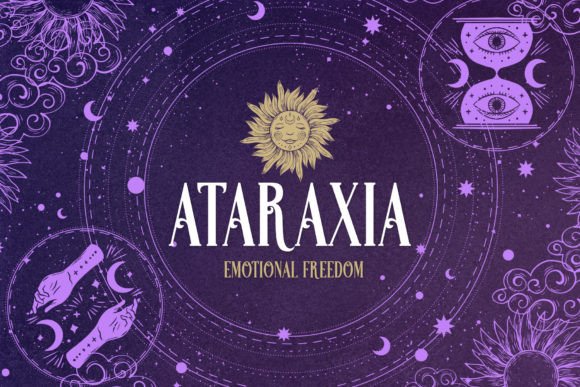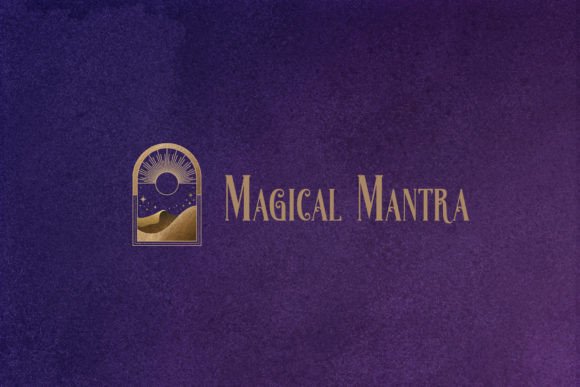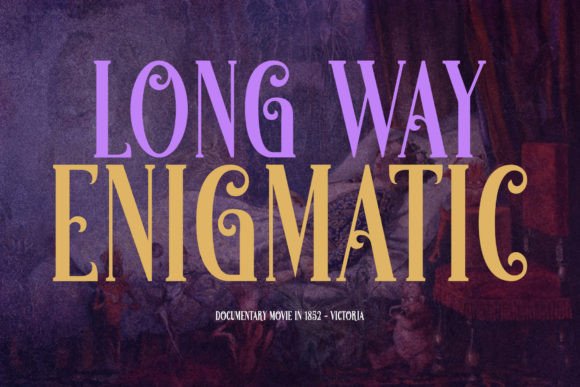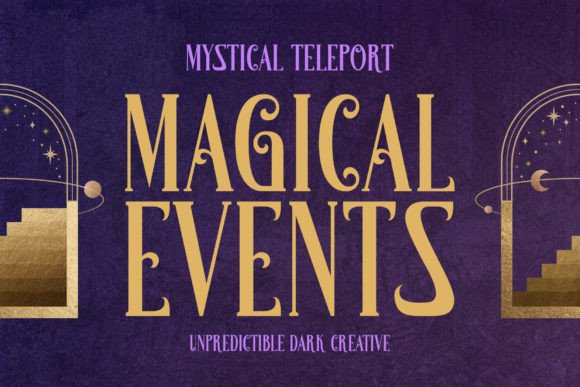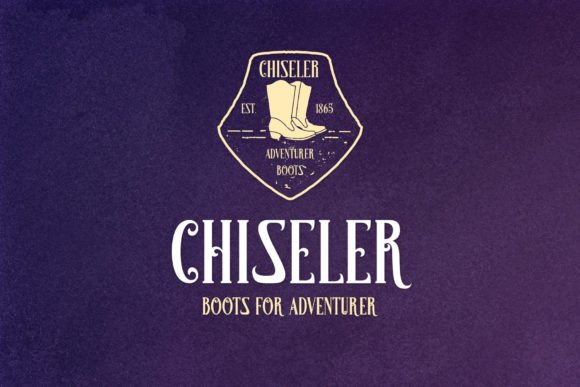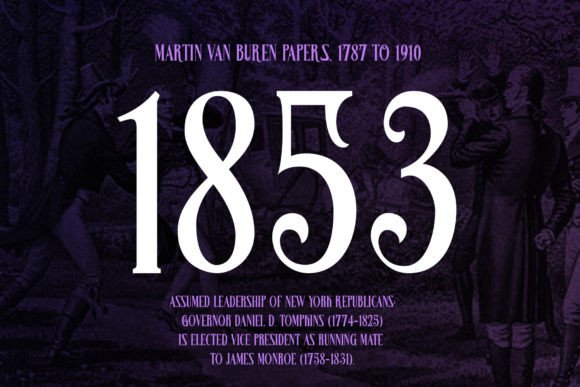
Introduction to Chiseler Font
Meet the Chiseler Font, a stunning display font that’s masterfully designed to elevate your creative project to new heights. With its elegant and stylish design, this font is sure to make your designs stand out from the crowd. Whether you’re working on a project that requires a transparent background or a free download, the Chiseler Font is an invaluable design resource that’s sure to become a true favorite.
- High-quality font designed for creative projects, perfect for adding a unique touch to your designs.
- Features a unique, handcrafted design that sets it apart from other fonts in its class.
Honest Review: Chiseler Font
I recently stumbled upon the Chiseler Font, and I’m excited to share my honest review with fellow designers. As a designer, I’m always on the lookout for high-quality fonts to elevate my creative projects. The Chiseler Font definitely caught my eye, and I was eager to give it a try.
Here are some things that work well with the Chiseler Font: ✨
- Its unique, modern design makes it perfect for creative projects that require a touch of sophistication.
- The font may not be suitable for projects that require a more classic or traditional look.
Overall, I’m impressed with the Chiseler Font. Its unique design and high quality make it a valuable addition to any designer’s toolkit. While it may not be suitable for every project, it’s definitely worth considering for creative projects that require a touch of modern flair.
Tips for Getting the Most Out of Chiseler Font
For the best results, use the Chiseler Font on a transparent background to create a clean and minimalist design. You can also experiment with different font sizes and styles to add depth and interest to your project. Don’t forget to check out the free download option to access the font and start creating your design project.
The Chiseler Font is a versatile design resource that can be used in a variety of projects, including logos, business cards, and brochures. It’s also great for creating titles and headings that require a high-quality and professional look. With its unique style and transparent background, the Chiseler Font is a great choice for any creative project that requires a touch of elegance and sophistication.